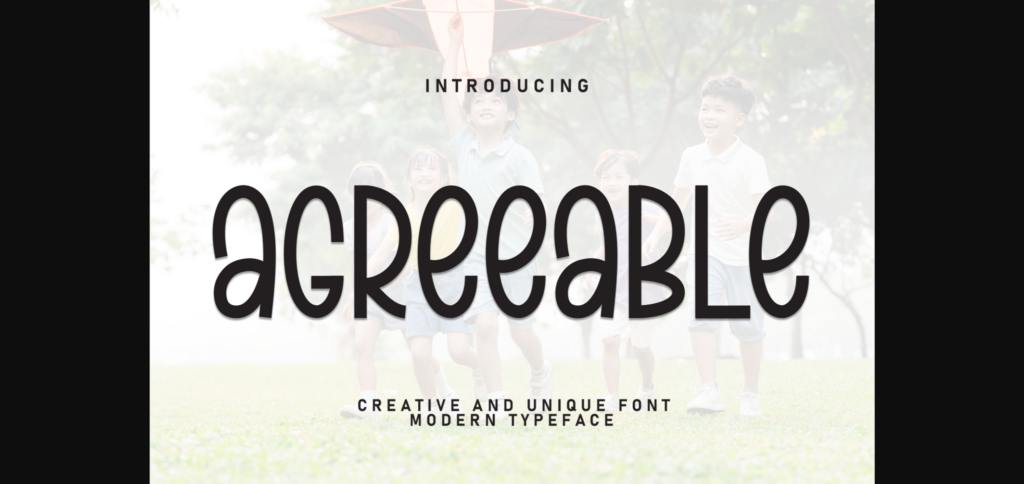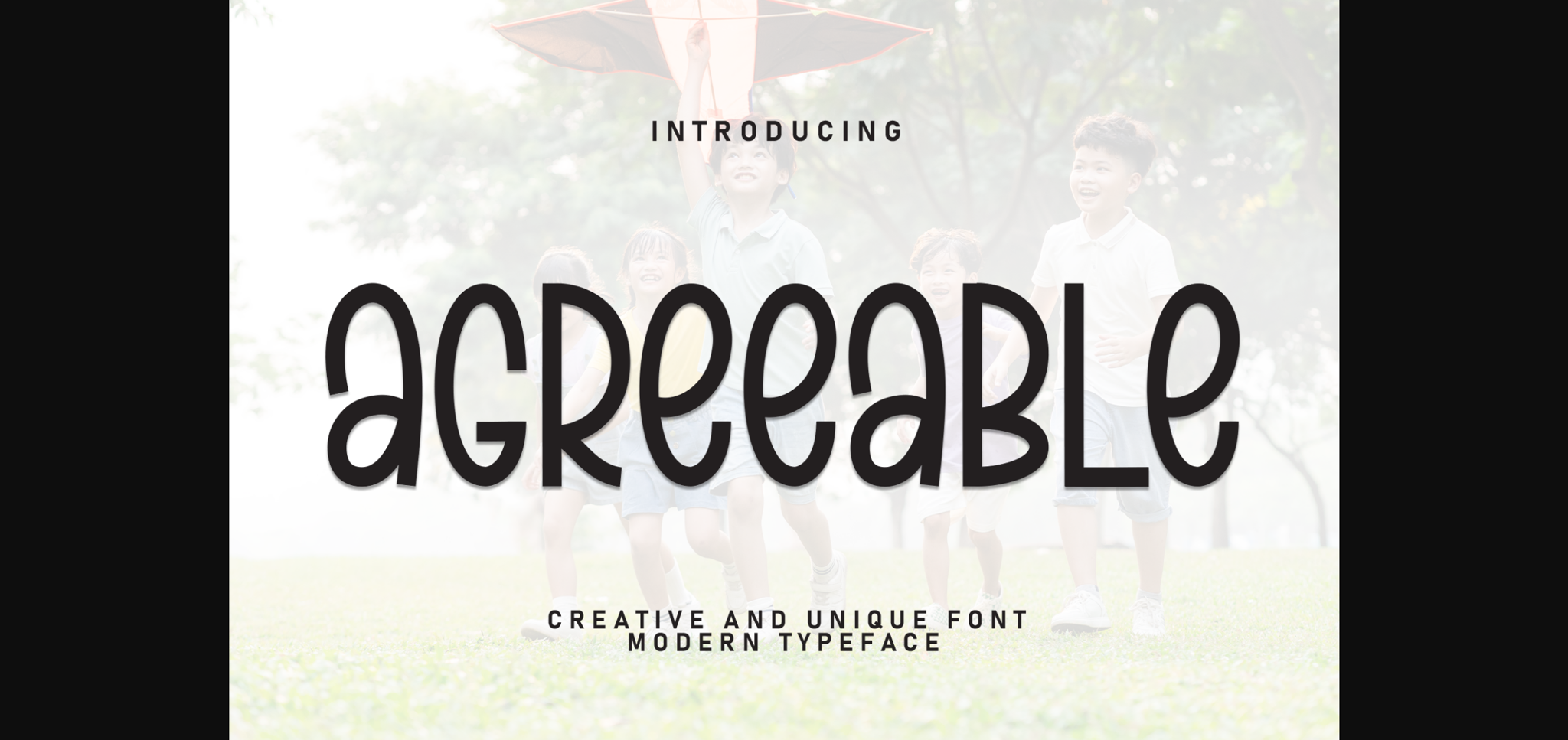
About Agreeable Font
Agreeable is a refreshing sans-serif font exuding clarity and simplicity. Its clean lines and balanced proportions make it perfect for a variety of design projects. Whether used in print or digital media, Agreeable brings a modern and professional touch, ensuring readability and visual appeal in every application.